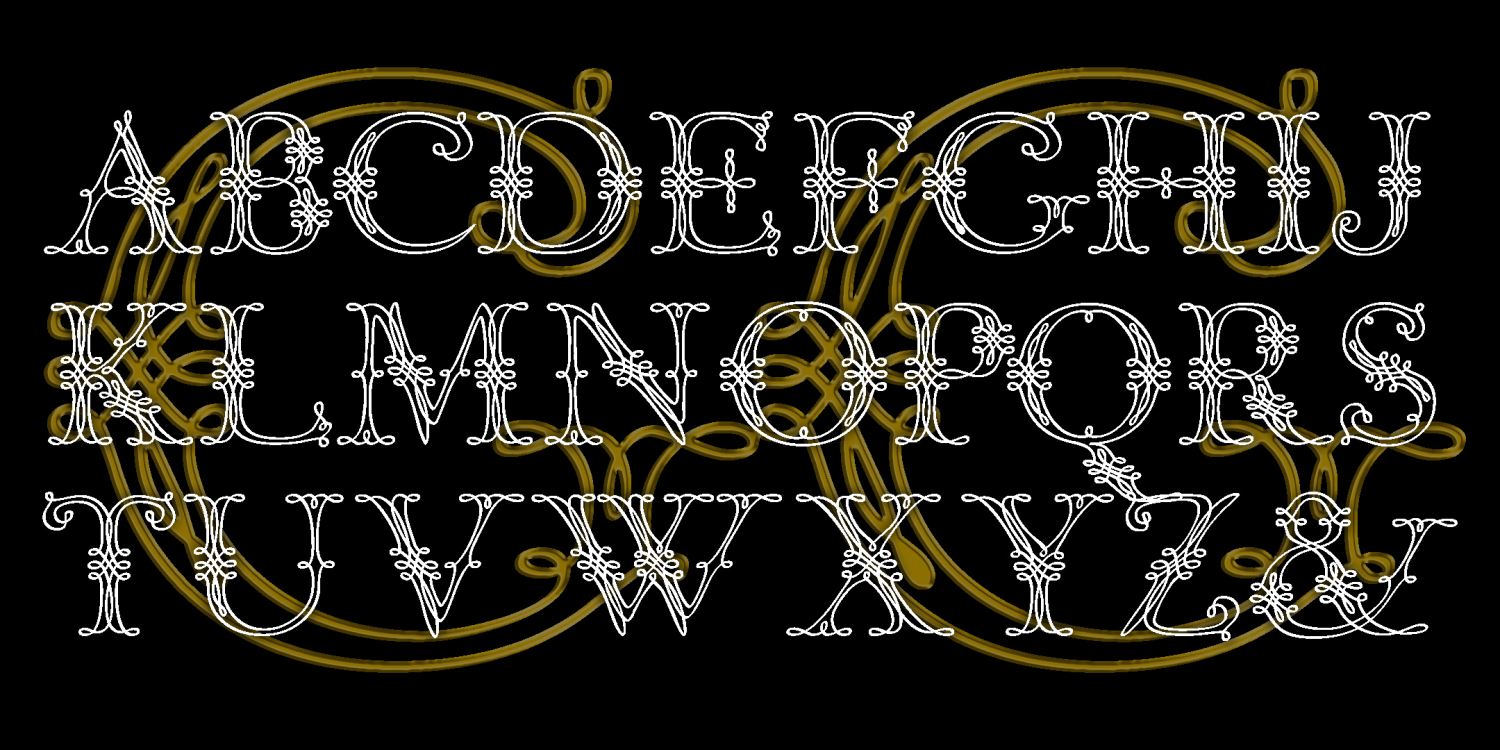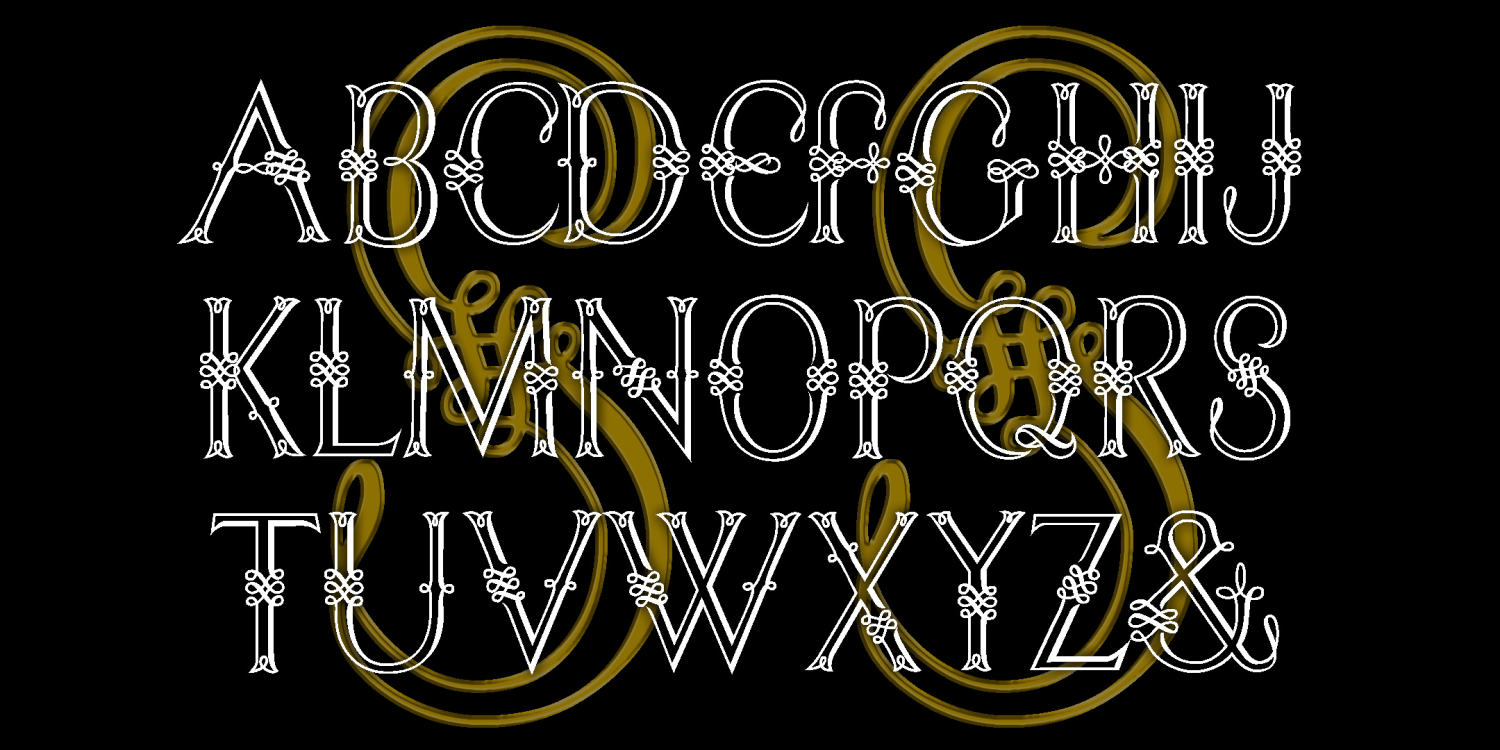
Graceful Ghost & Sweet Spirit
GRACEFUL GHOST, an ornamental, calligraphic font, was suggested to me by Bruce Baryla, who also proposed the name. Here is all the information I have about the original design that inspired it: 18th century, French School, Pouget Brothers."  Completely redrawn–not traced–for very smooth lines. Looks great reversed and, of course, BIG.
SWEET SPIRIT is a cousin to my Graceful Ghost font, an ornamental, calligraphic font. Similarly composed of graceful curving lines, but somewhat more compressed than its companion.
GRACEFUL GHOST includes caps, no numbers, limited punctuation and international characters.
SWEET SPIRIT includes caps, numbers, limited punctuation and international characters.
The Graceful Ghost & Sweet Spirit font family includes 157 glyphs.